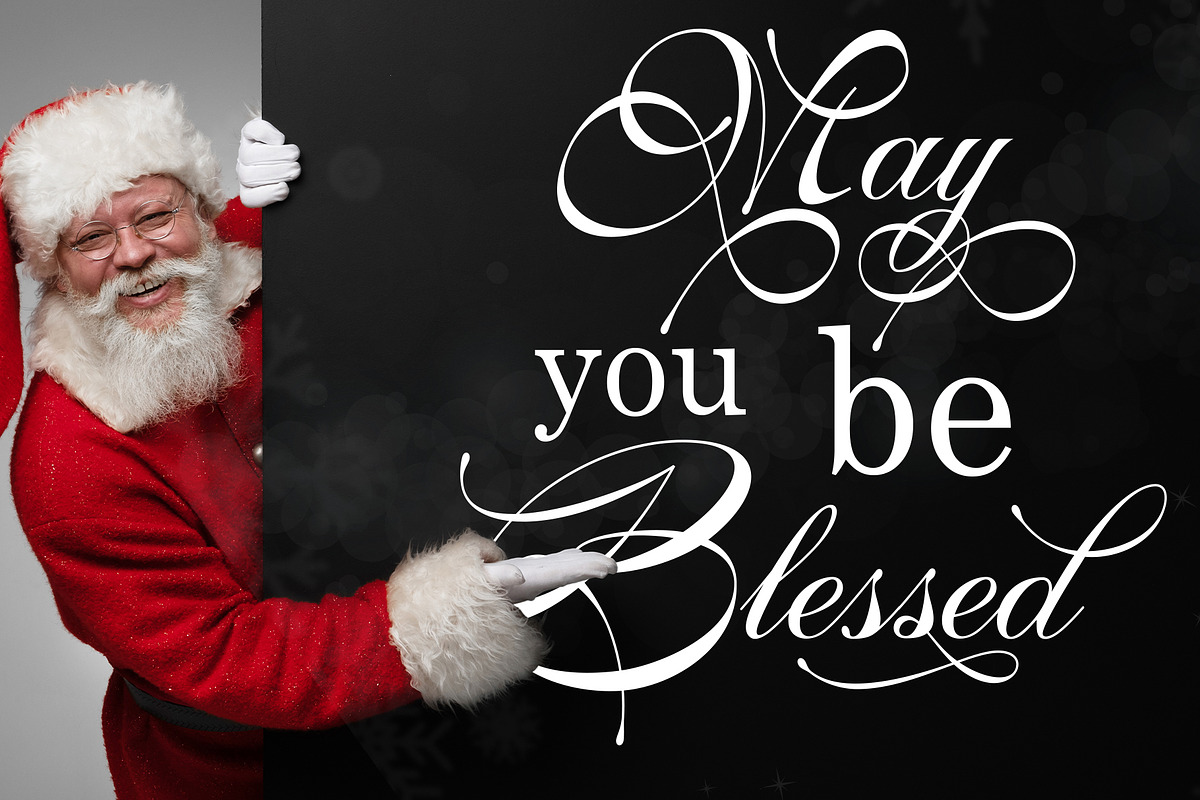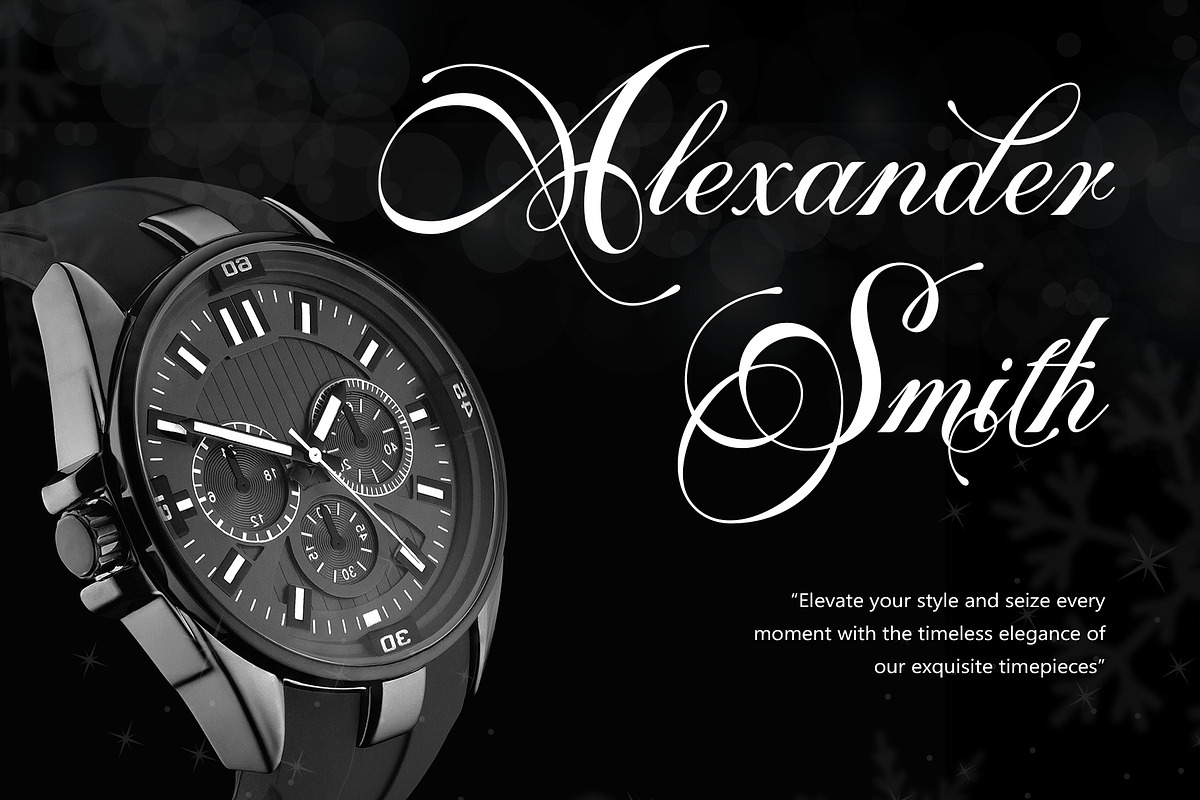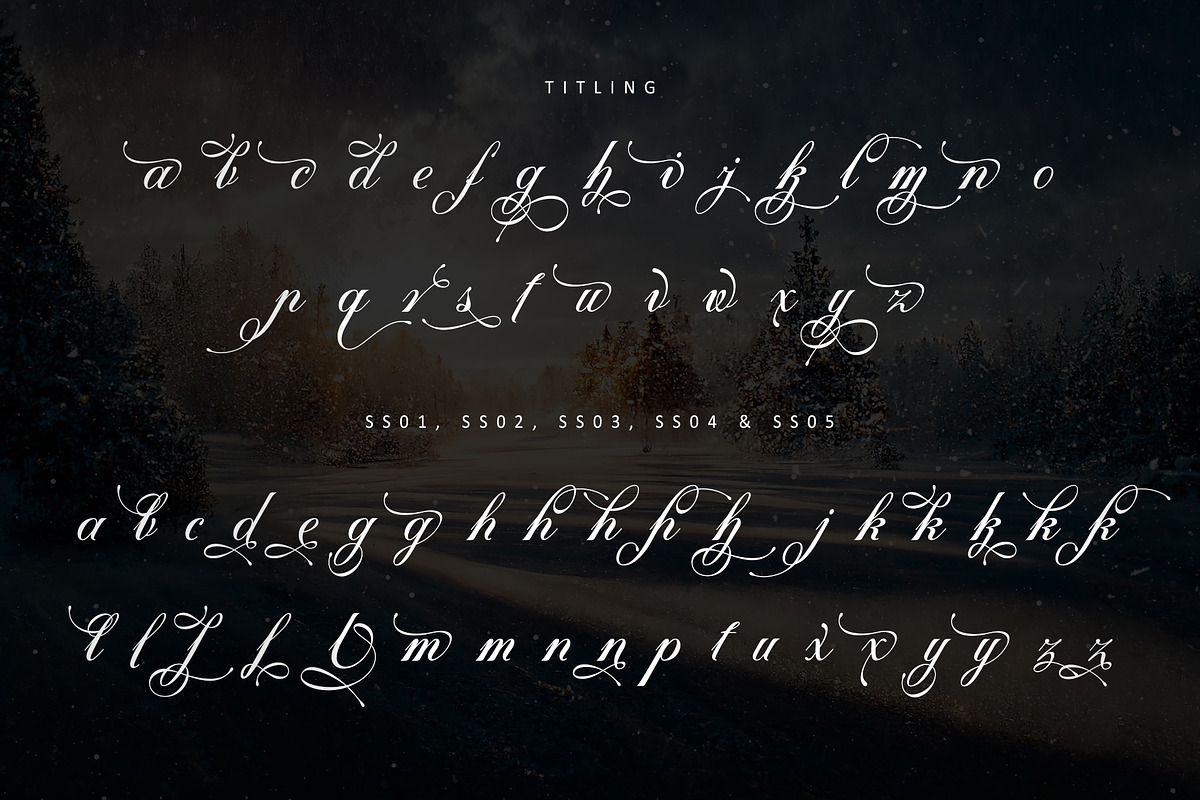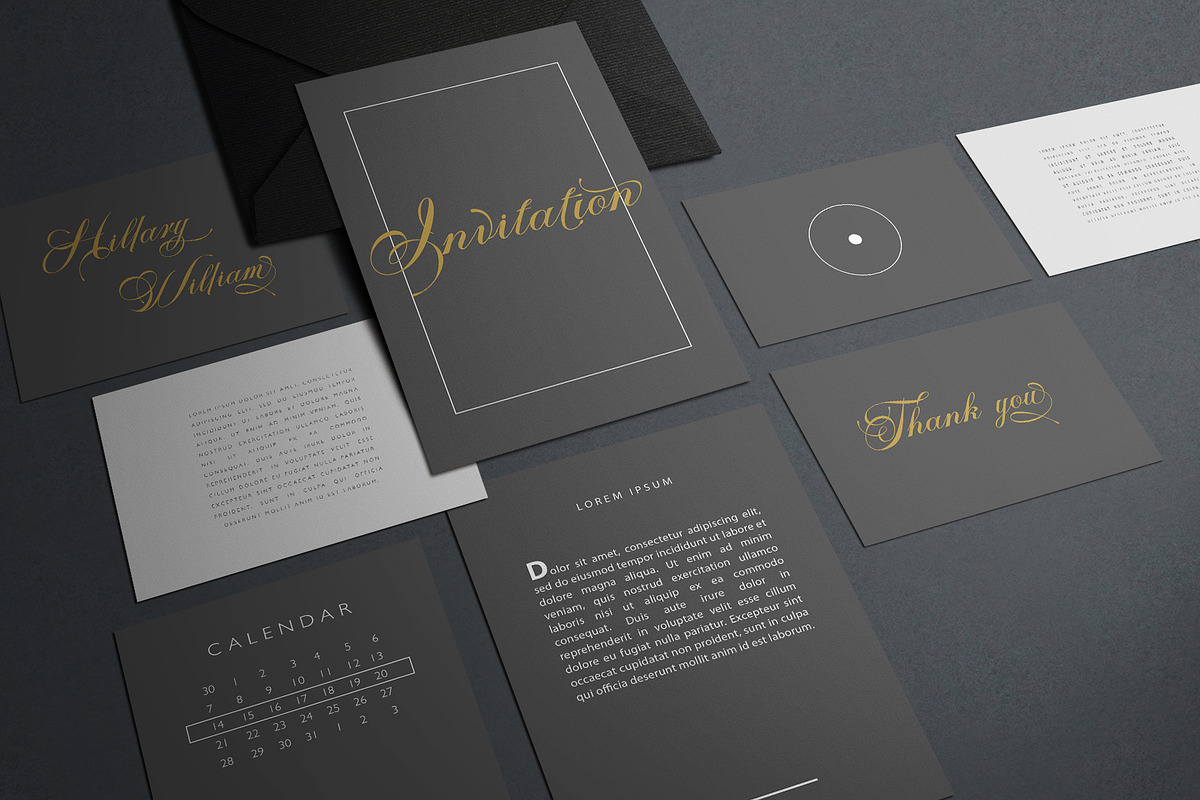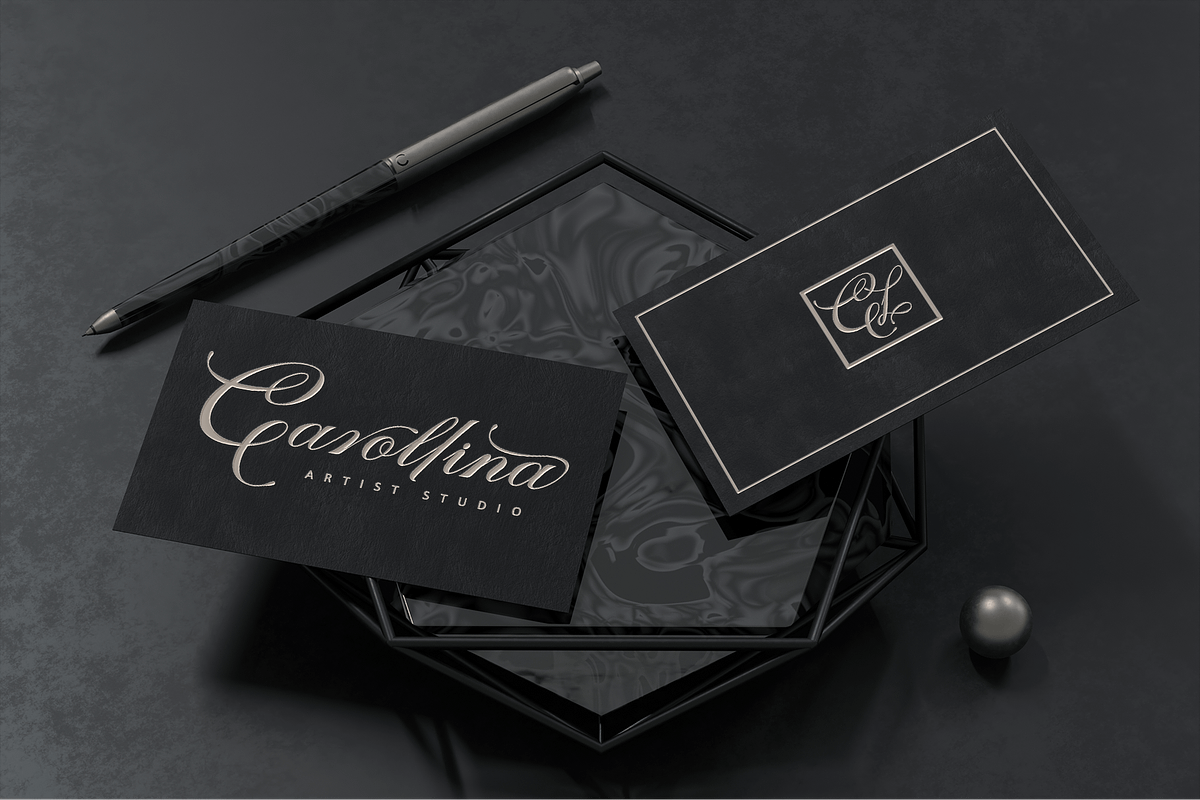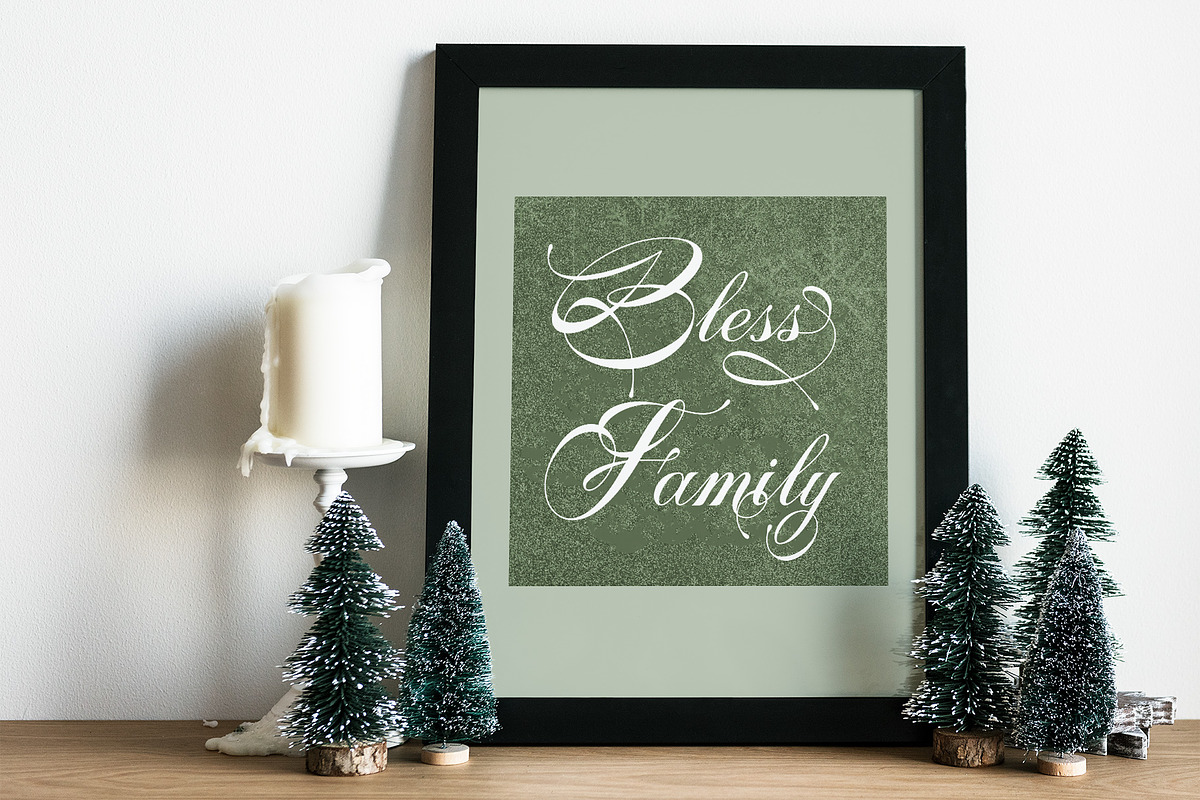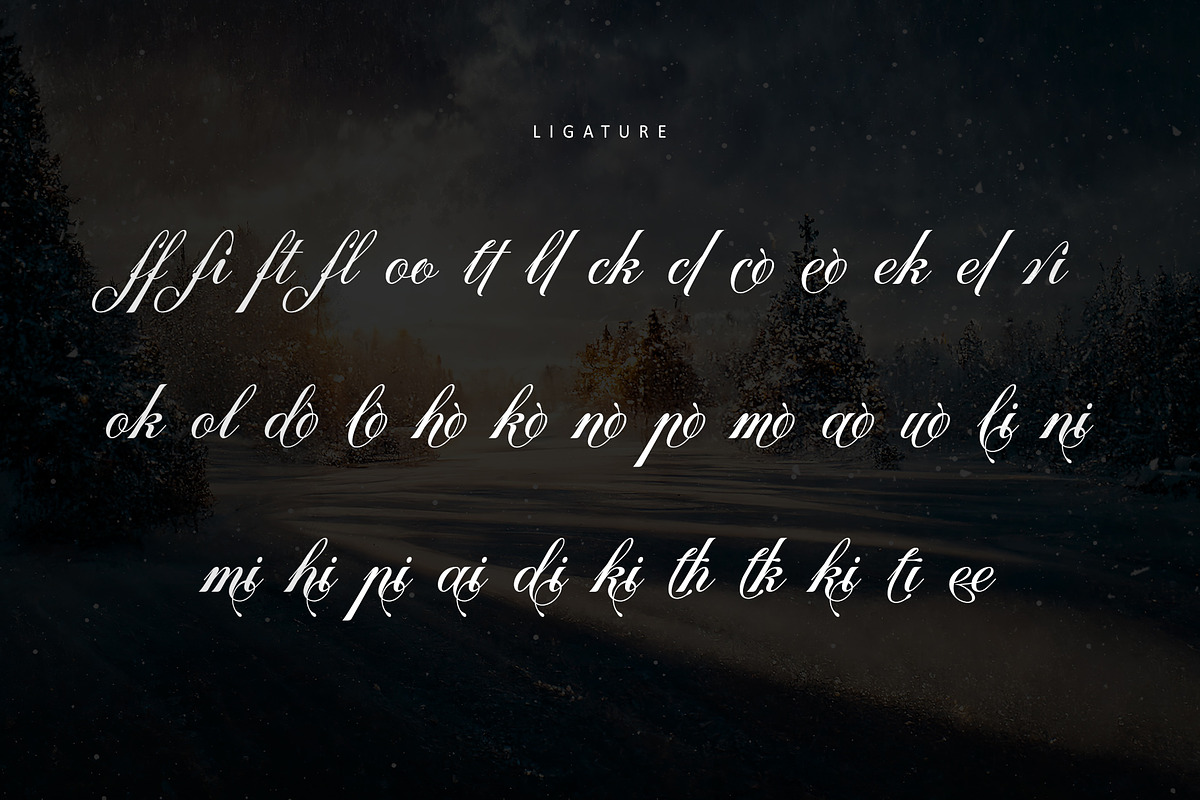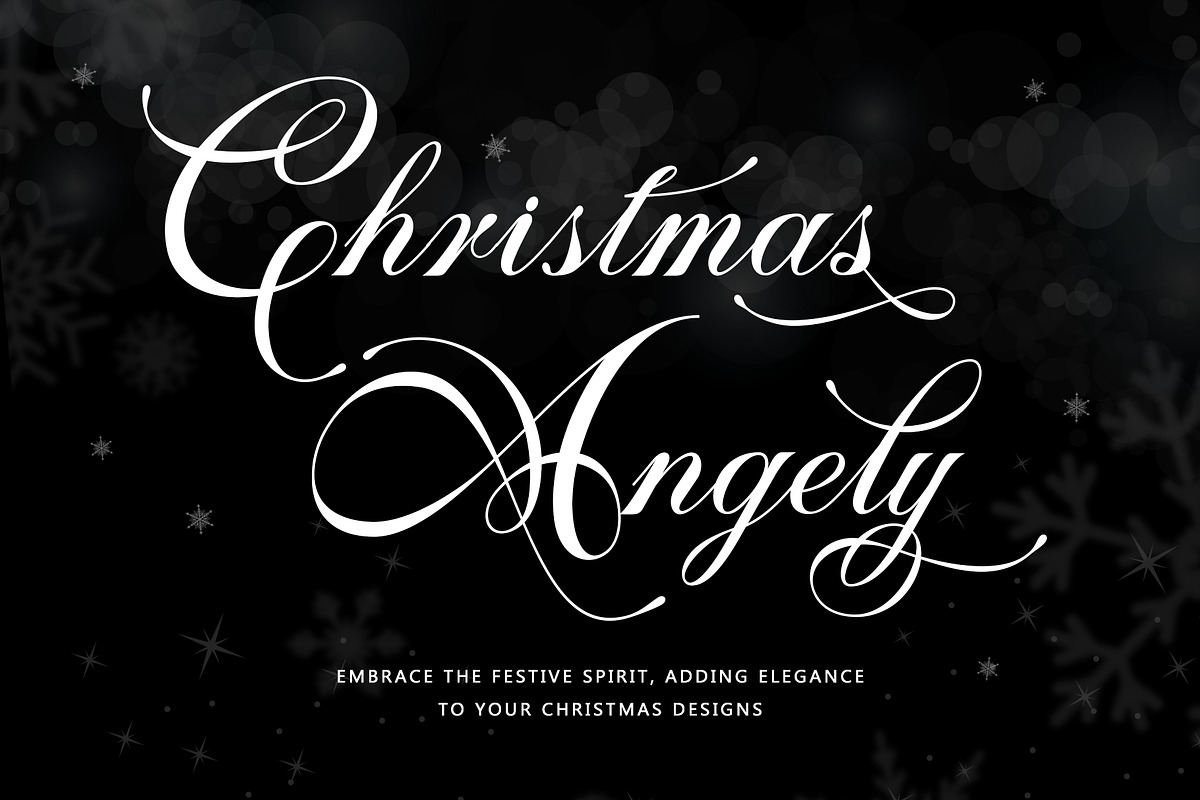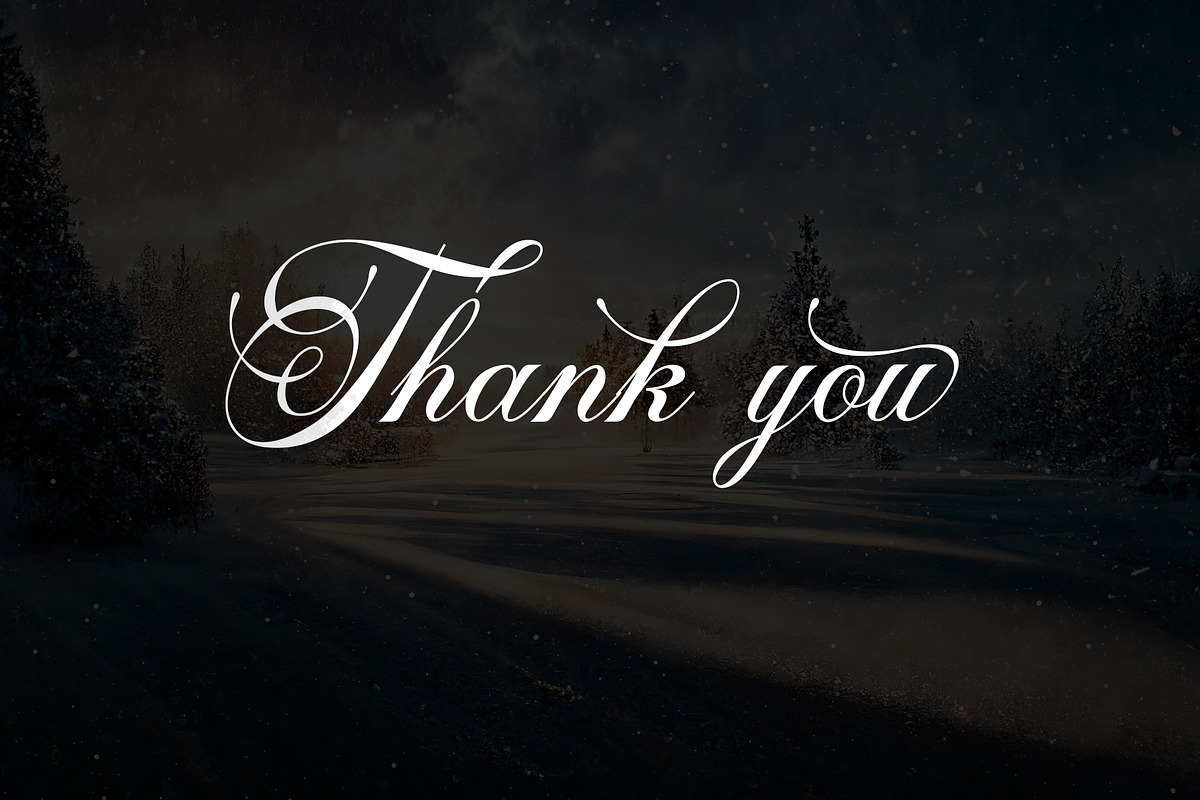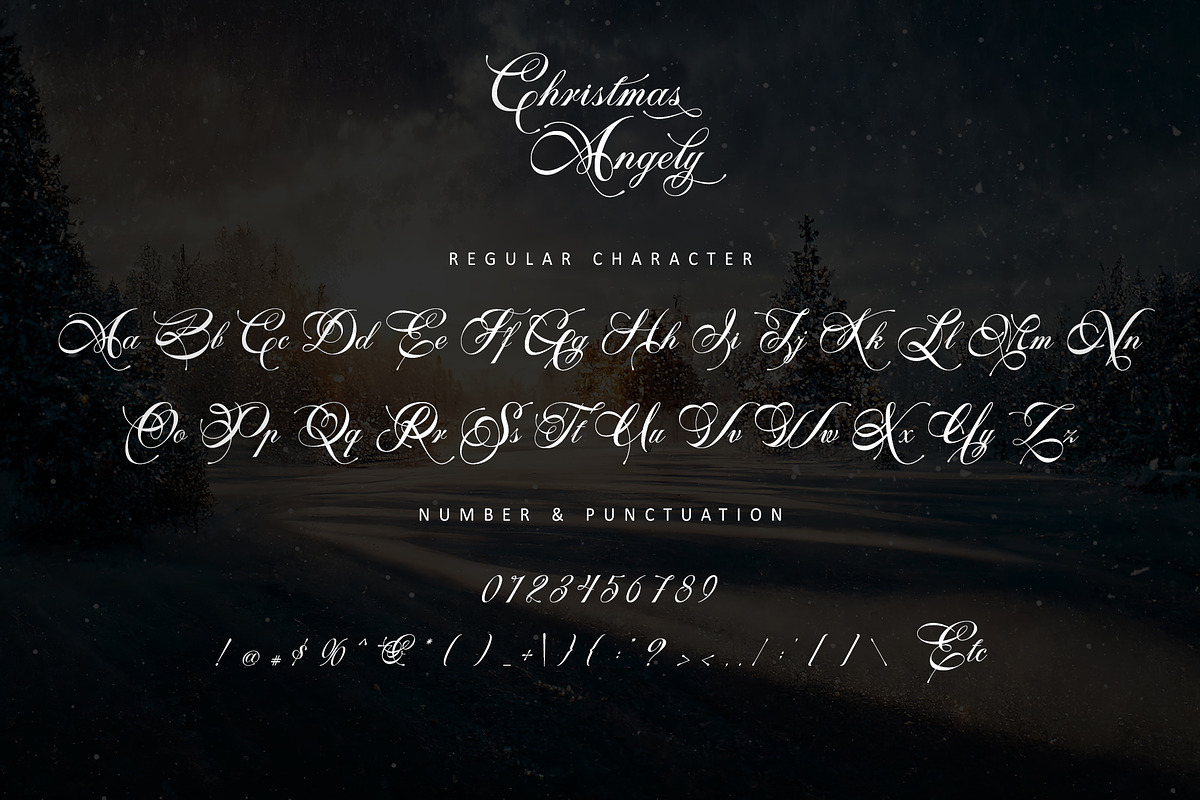
Christmas Angely
Step into the world of enchantment with Christmas Angely, a captivating formal calligraphy font that adds a touch of glamour to your designs. Embrace the holiday spirit with sophistication and elegance, making every Christmas moment truly extraordinary. With PUA encoding, unlock its endless possibilities and effortlessly enhance your creations.
Many Features:
- Support multilingual; ä ö ü Ä Ö Ü ß ¿ ¡
- lowercase and uppercase letters
- Alternate, Swash, Titling, Ligature, SS01, SS02, SS03, SS04 & SS05